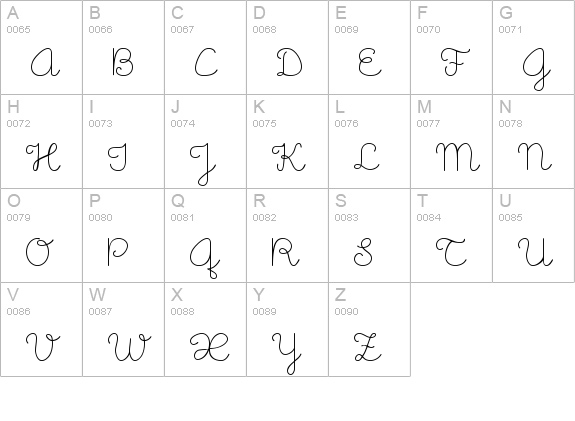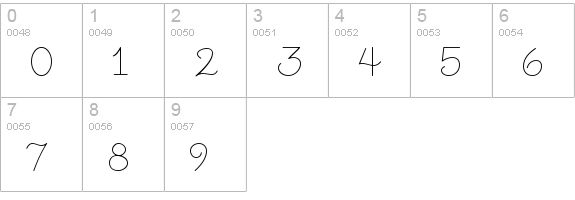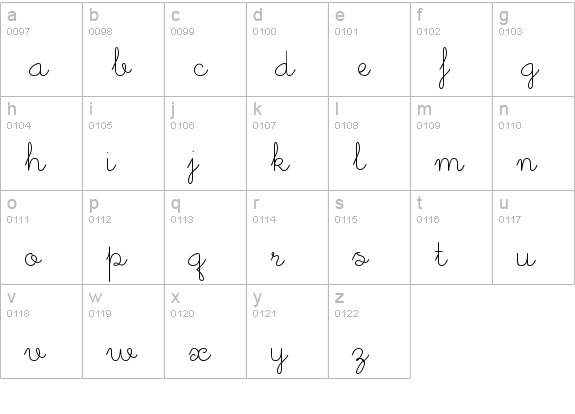
Little Days Alt Font Details
Little Days Alt is a delightful and charming handwritten font that brings a touch of whimsy to any project. With its playful and slightly imperfect letterforms, this font exudes a sense of childlike wonder and creativity. Whether you're designing a birthday invitation, a children's book cover, or a fun poster, Little Days Alt is the perfect choice to add a touch of joy and character to your designs. This font features alternate letterforms that add even more versatility and uniqueness to your designs. These alternate characters provide a variety of options to experiment with and create a customized look that perfectly suits your creative vision. Little Days Alt is not only visually appealing but also incredibly versatile. It works well in both large and small sizes, and its legibility remains intact even when used at smaller point sizes. This makes it ideal for a wide range of projects, from headlines and titles to body text and captions. The best part? Little Days Alt is available for free! You can easily download this font at FontsMarket.com, a trusted source for high-quality fonts. Embrace your inner child and let your imagination run wild with Little Days Alt - the possibilities are endless. Get your hands on this free font today and start adding a touch of whimsical charm to your designs.